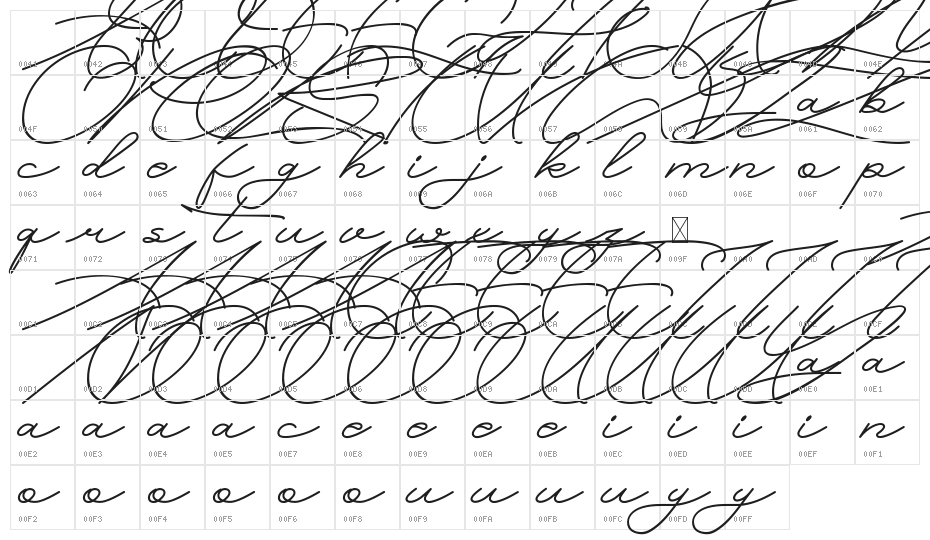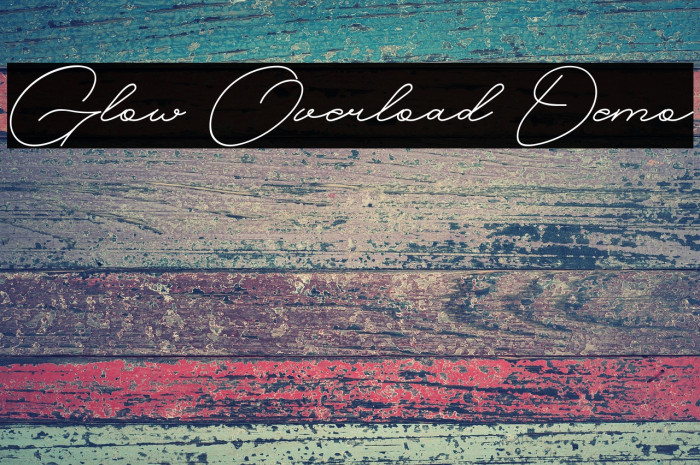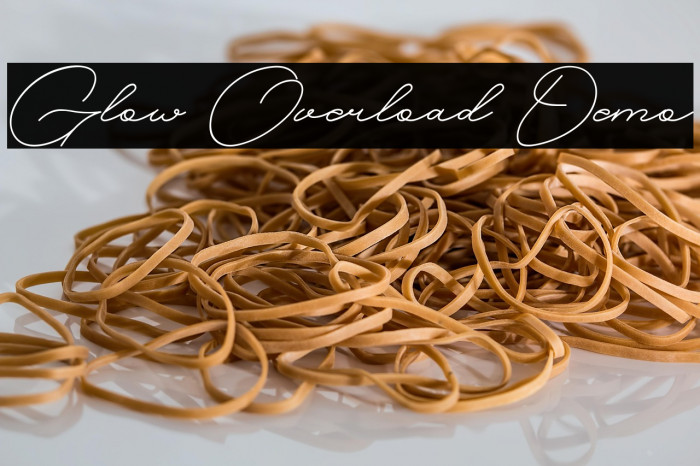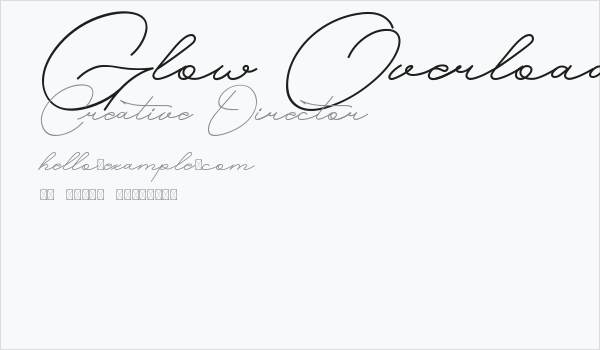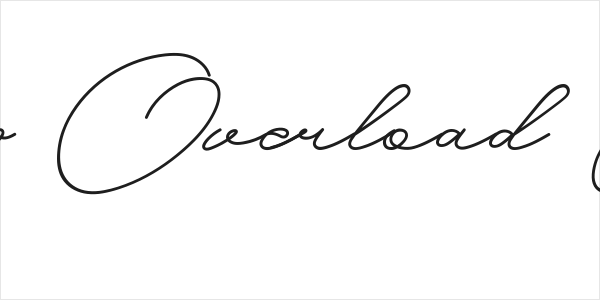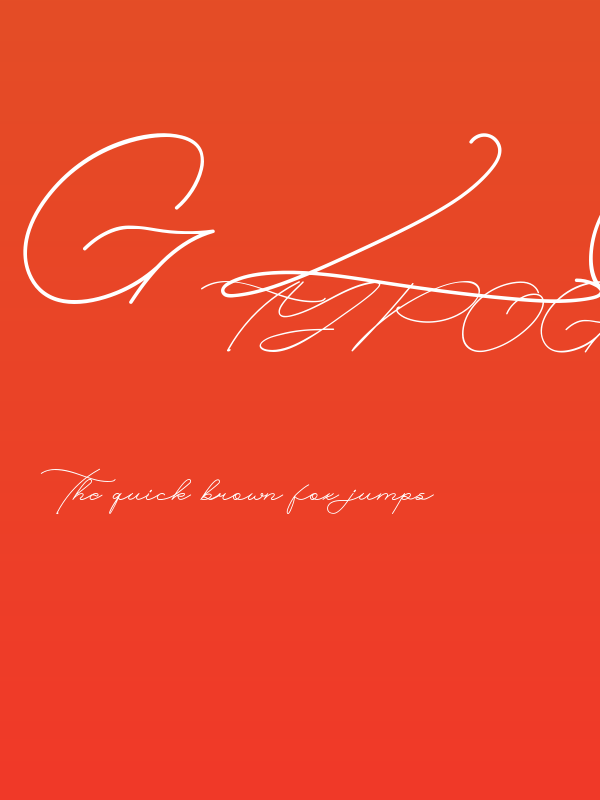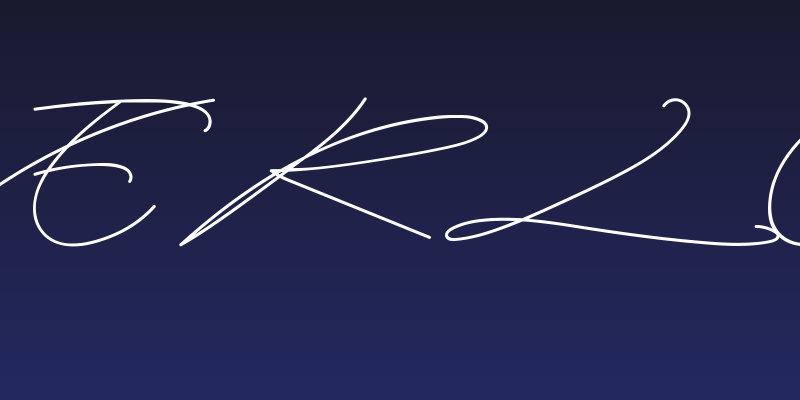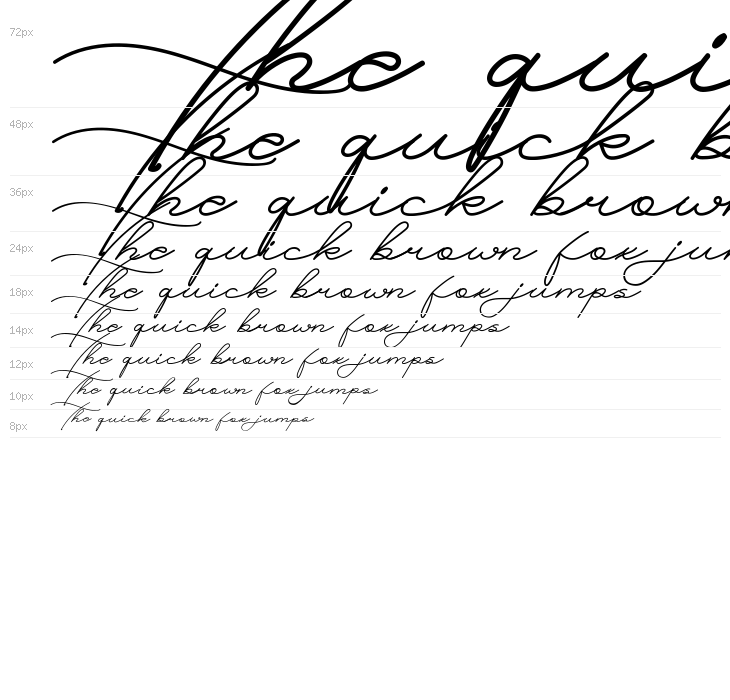
Glow Overload Demo Font
Glow Overload Demo Description
This elegant script font features a flowing, cursive style with smooth, connected strokes that give it a sophisticated and graceful appearance. The uppercase letters are slightly more elaborate, with extended loops and flourishes, while the lowercase letters maintain a consistent rhythm and fluidity. The font's thin lines and delicate curves create a sense of lightness and elegance, making it ideal for formal invitations, branding, and decorative purposes. Its overall aesthetic is both classic and modern, offering versatility for various design projects.
| Overall Style | Elegant, Classic |
| Proposed Projects | Ideal for wedding invitations, branding, greeting cards, and decorative designs. |